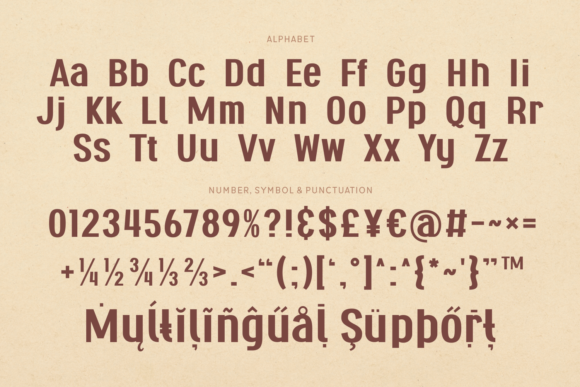
Introduction to Keline Font
Have you ever been working on a design project, pouring your heart and soul into every detail, only to realize that the typography is lacking that extra oomph? We’ve all been there. It’s the difference between a good design and a great one. And that’s where the Keline Font comes in – a clear and solemn sans serif font that adds an exquisite touch to your creative projects.
As designers, we’re always on the lookout for high-quality design resources that elevate our work. And the Keline Font is definitely one of them. With its transparent background and crisp lines, it’s the perfect addition to any design project that requires impeccable typography. Whether you’re working on a brochure, a website, or a logo, the Keline Font is sure to make a statement.
What sets the Keline Font apart is its versatility and elegance. It’s the perfect choice for designers who want to add a touch of sophistication to their work. And the best part? It’s available for free download, making it an accessible design resource for designers of all levels.
- High-quality, vector-based font design, ideal for creative projects and design resources.
- Transparent background, allowing for easy integration with various design elements and backgrounds.
- Resolution-independent design, suitable for use in both print and digital applications.
- Designed with a modern, elegant aesthetic, perfect for a wide range of creative projects and design resources.
Honest Review: Keline Font
I recently stumbled upon the Keline Font and I must say, it’s been a game-changer for my design projects. The Keline Font is a high-quality design resource that offers a unique and creative touch to any project. ✨
One of the standout features of the Keline Font is its versatility. It’s perfect for creating stunning headlines, quotes, and even logos. The font is available for free download, which is a major plus for designers on a budget. The transparent background option is also a huge plus, allowing for seamless integration into any design project.
- Unique and creative design style
- High-quality font files
Overall, I’m thoroughly impressed with the Keline Font. It’s a great addition to any designer’s toolkit, and I highly recommend it for any creative project. ✨
Tips for Getting the Most Out of Keline Font
For a seamless design experience, make sure to use a transparent background when working with Keline Font. This will allow you to combine the font with other design elements easily. You can also experiment with different font sizes and colors to achieve the desired effect.
Common Use Cases for Keline Font
Keline Font is perfect for a variety of creative projects, including logos, business cards, and social media graphics. Its unique style and high-quality design make it an excellent choice for designers looking to add a touch of elegance to their work.
It compares to Keline Font by offering a similar elegant script style but with a more refined and polished look. While Keline Font has a more playful and whimsical feel, Alex Brush Font is more suitable for formal and professional projects.
What is the recommended usage for the Keline Font?
The Keline Font is a versatile design resource that can be used in a wide range of creative projects, from branding and marketing materials to digital products and publications. We recommend using the font in conjunction with other high-quality design elements to create a cohesive and visually appealing visual identity.